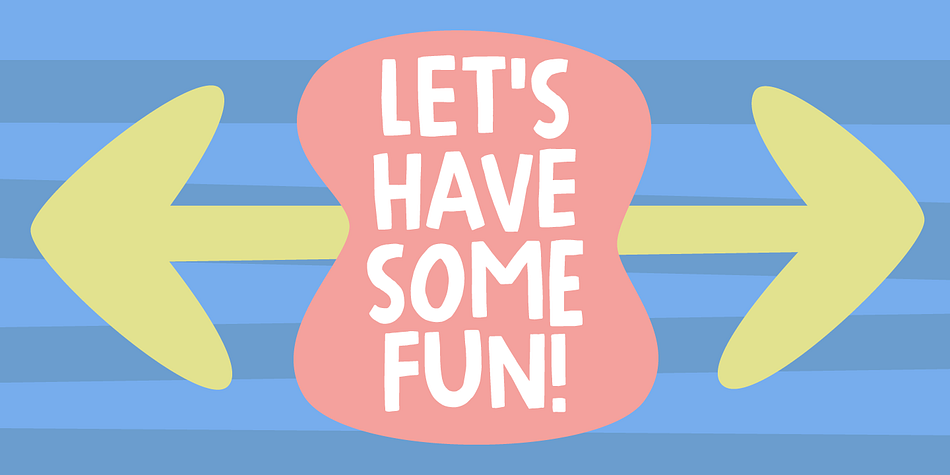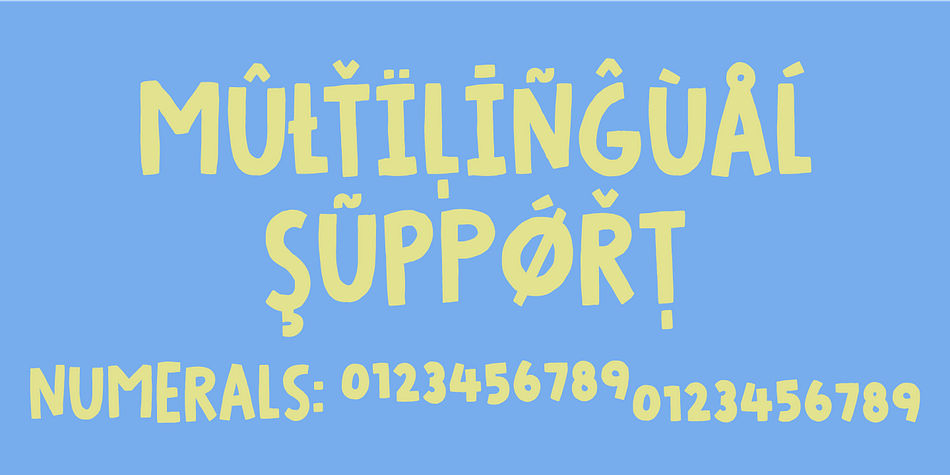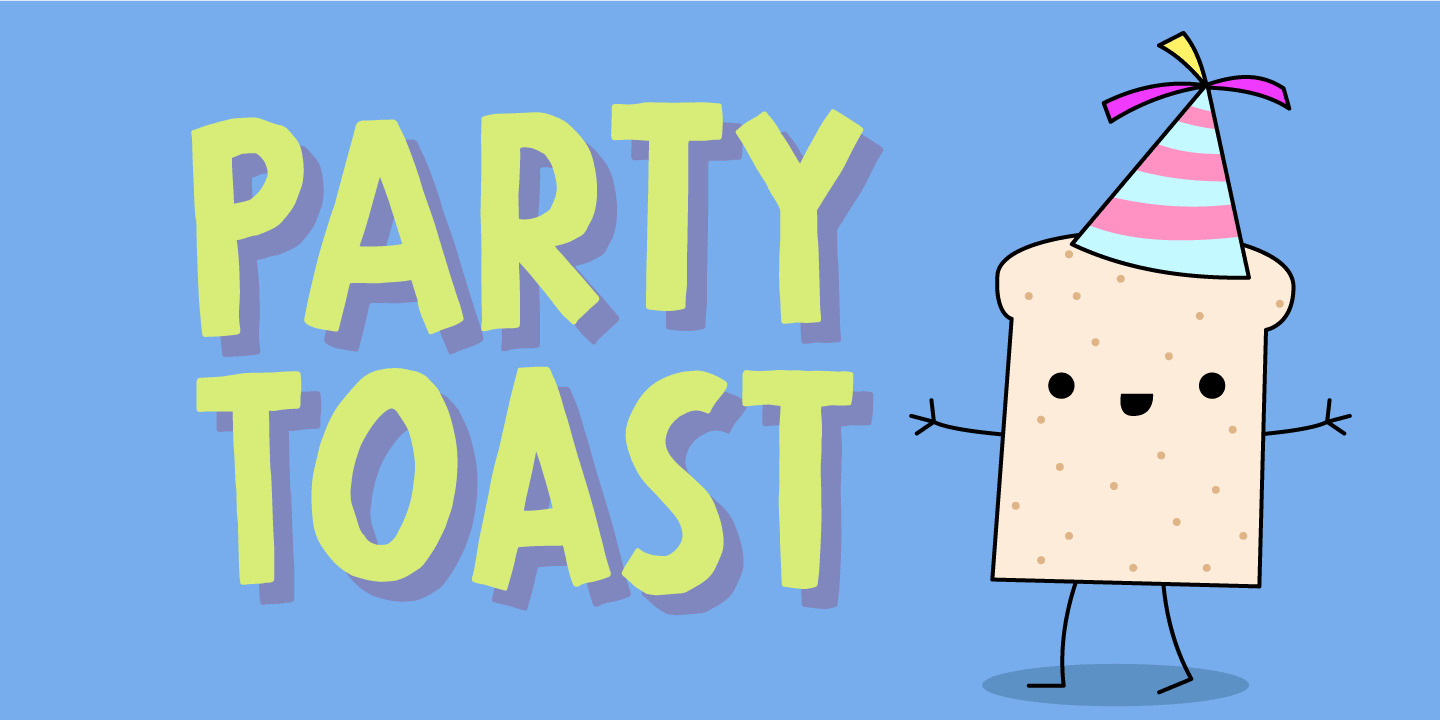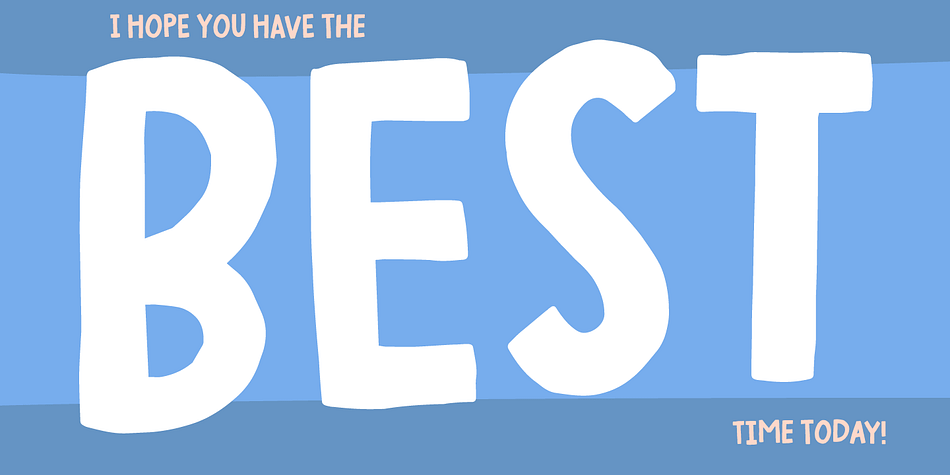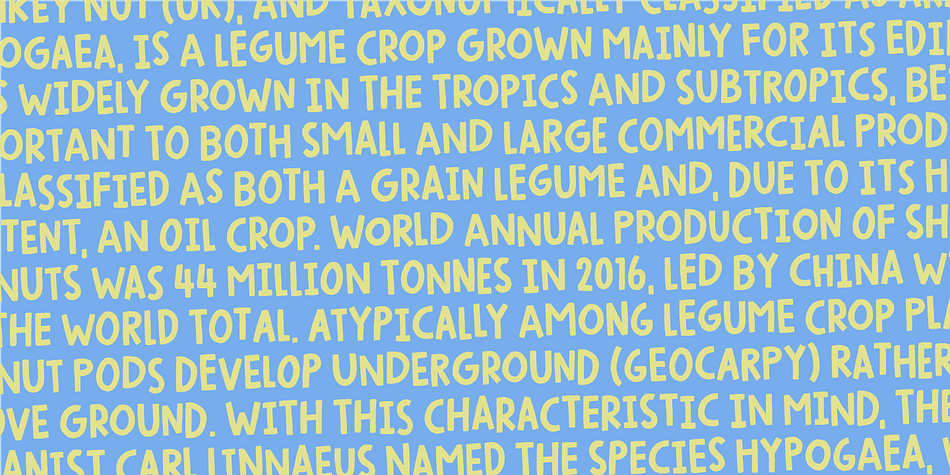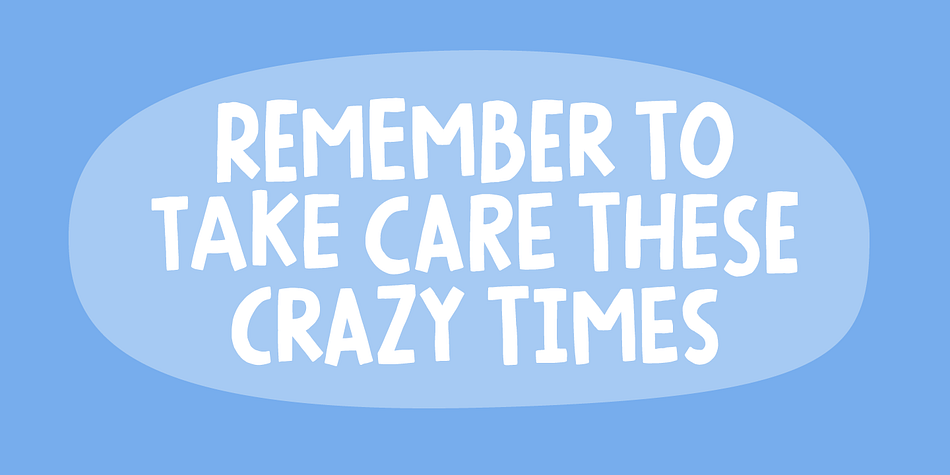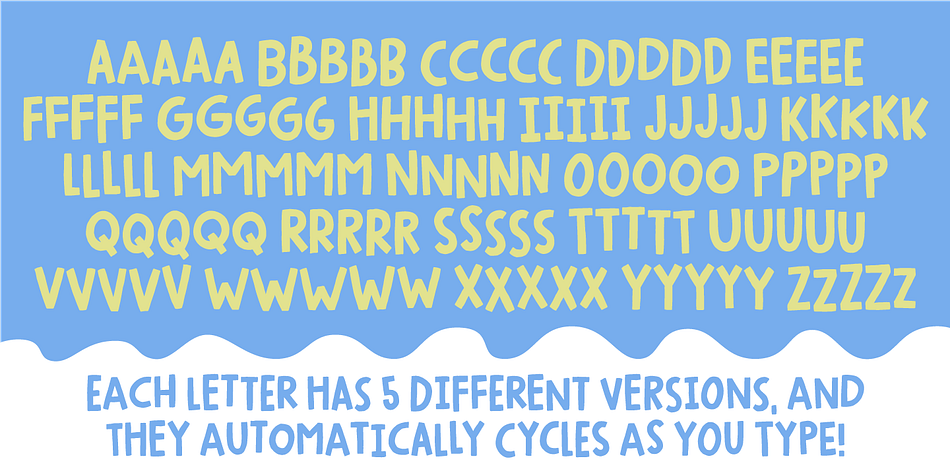
Designed by Jakob Fischer, Party Toast is a hand display and hand drawn font family. This typeface has two styles and was published by Bogstav.
This is my first fontrelease in 2021, and it’s one of those “things will get better soon” kinda fonts (Here I am thinking about 2020, which was a year I am glad we just left!)
Anyway, the first thing I ate in 2021 (not counting the “kransekage” after midnight) was a delicious and lovely tuna sandwich - or as I called it: Party Toast! Heh-heh! :)
Well, it is a playful font with it’s jumpy and slightly quirky letters. I’ve added 5 different versions of each letter and they automatically cycles as you type.